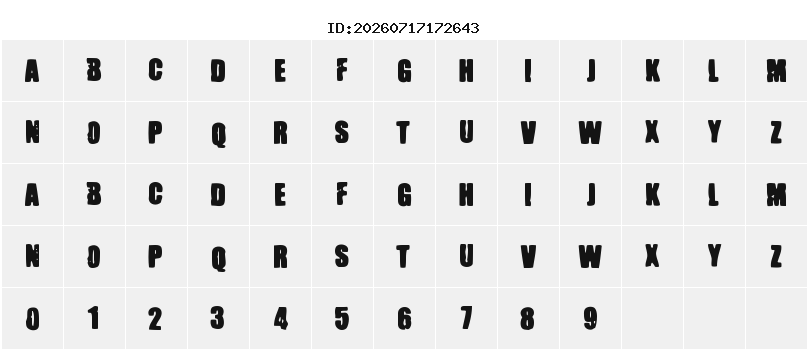
Big Drama Preview
• Font Name: Big Drama
• Full Font Name: Big Drama
• Version: Version 1.00 January 13, 2016, initial release
• Designer: Woodcutter Manero
About Big Drama.ttf
Big Drama.ttf is a modern, elegant sans-serif font designed for ultimate readability and visual harmony. Perfect for branding, headlines, web design, and print materials.